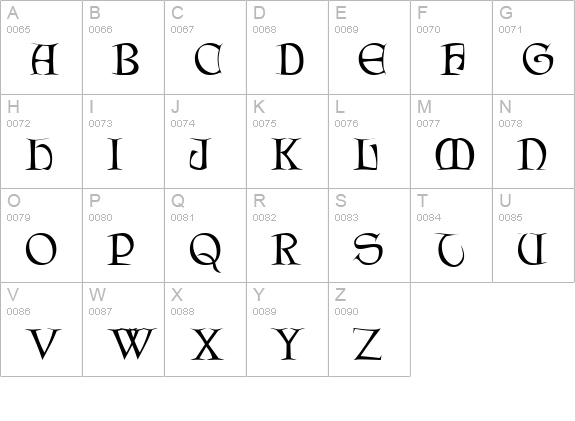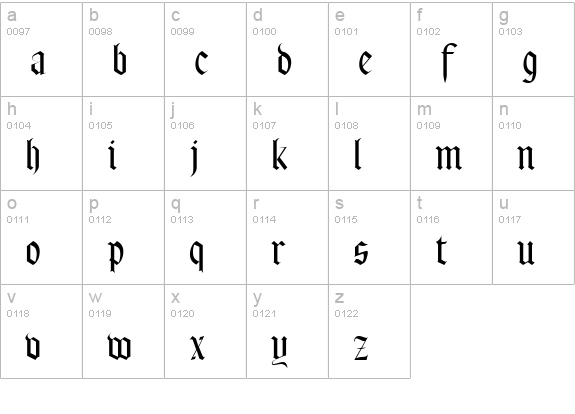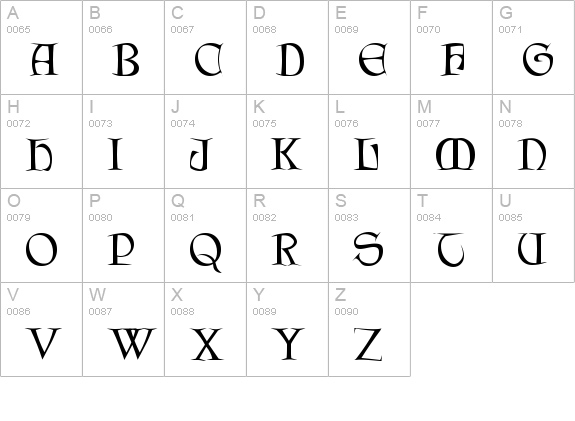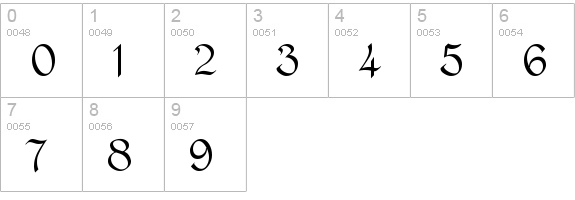
Lettergical Font Details
Introducing Lettergical, a captivating and versatile font that is sure to elevate your design projects to new heights. With its sleek and sophisticated appearance, Lettergical effortlessly blends elegance with modernity, making it the perfect choice for any creative endeavor. Featuring a wide range of letterforms meticulously crafted with precision, this font offers endless possibilities for expressing your unique vision. From bold headlines to delicate script, Lettergical adapts effortlessly to any typographic requirement. Its clean lines and exquisite curves create a harmonious balance, ensuring legibility while adding a touch of artistic flair. But what truly sets Lettergical apart is its accessibility. We believe that great design should be available to all, which is why we are proud to offer this remarkable font for free. Yes, you read that right - Lettergical is freely available to download at FontsMarket.com, allowing you to unleash your creativity without breaking the bank. Whether you're a seasoned designer or a passionate enthusiast, Lettergical is the perfect companion for any project. Its versatility knows no bounds, making it equally suitable for branding, packaging, logos, invitations, and so much more. With Lettergical by your side, every design endeavor becomes a seamless journey of self-expression. So why wait? Unlock the potential of your designs today with Lettergical. Download this exceptional font for free at FontsMarket.com and embark on a typographic adventure that will leave a lasting impression. Let Lettergical be your creative partner, and watch your designs come to life in ways you never thought possible.